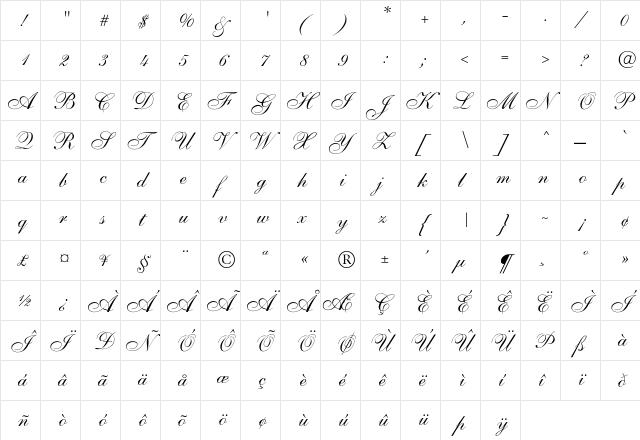
Parsons Italic Normal Italic
Design Context for Parsons Italic Normal Typeface
Parsons Italic Normal is a composed and adaptable typeface that performs quietly and consistently across a wide range of design contexts. The dynamic lean of this cut emphasises speed and emphasis in any layout.
Pro Tip: Try Parsons Italic Normal for annotation and caption copy alongside an upright companion — the contrast in angle creates a dynamic but ordered typographic system.